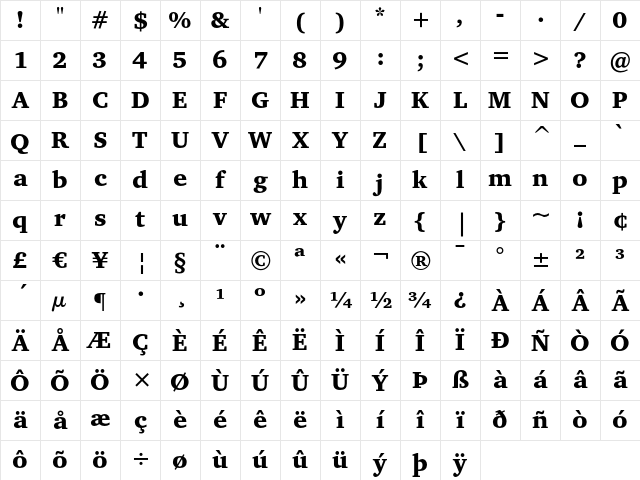
Complete Bitstream Charter Black glyph index. Displaying only characters natively supported by Bitstream Charter Black font.
Bitstream Charter is a composed and adaptable typeface that performs quietly and consistently across a wide range of design contexts.